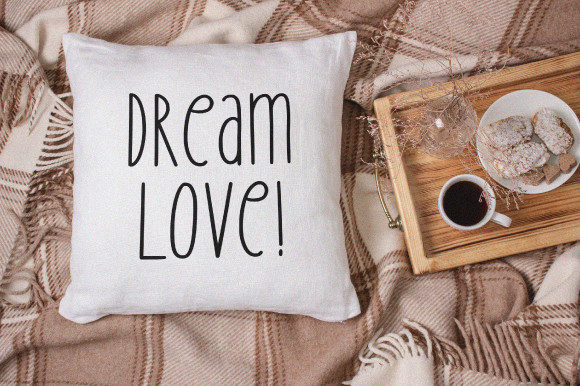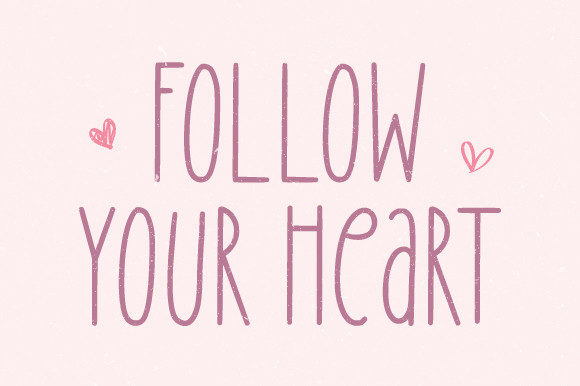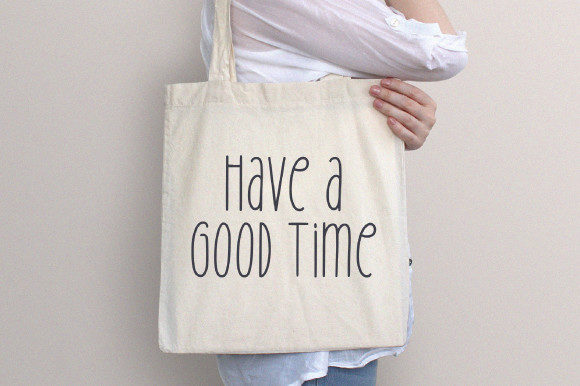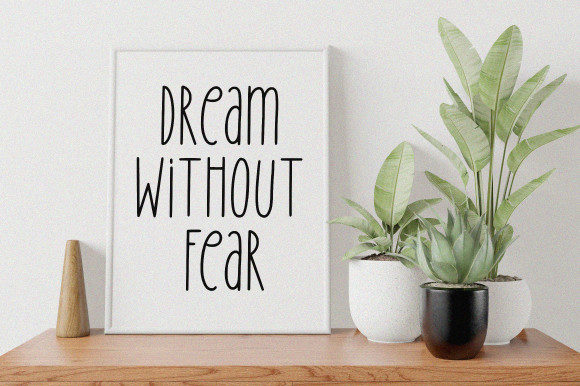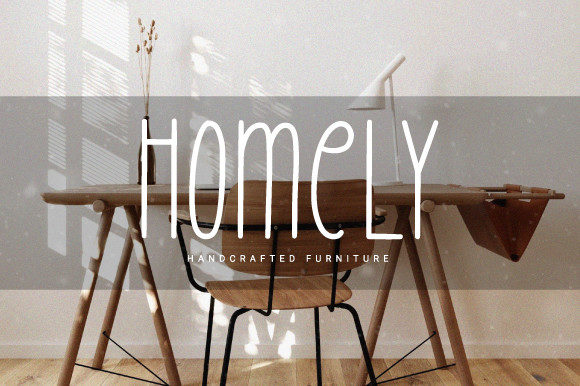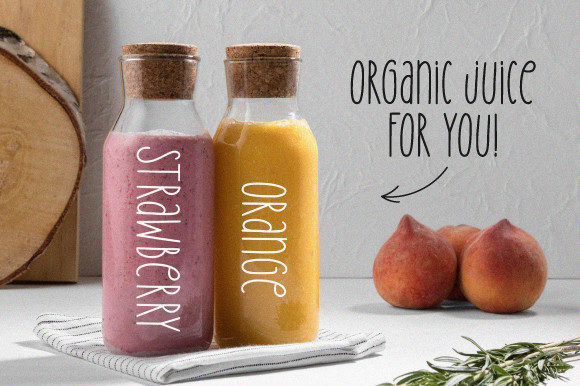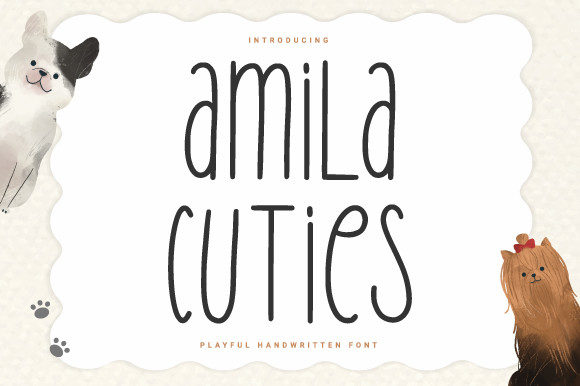
Introducing Amila Cuties Font: The Perfect Addition to Your Design Arsenal
Are you a designer, crafter, or DIY enthusiast looking for a font that can elevate your creative projects to the next level? Look no further than Amila Cuties Font, a tall, cute, and simple lettered display font that’s perfect for Instagram, calligraphy scripts, and a wide range of DIY projects. In this article, we’ll take a closer look at Amila Cuties Font, its features, and how you can use it to turn your creative ideas into true works of art.
What is Amila Cuties Font?
Amila Cuties Font is a beautifully designed display font that’s characterized by its tall, cute, and simple lettering style. Its clean and elegant design makes it perfect for a wide range of creative projects, from social media graphics and Instagram posts to calligraphy scripts and DIY crafts. Whether you’re a professional designer or a DIY enthusiast, Amila Cuties Font is a versatile and easy-to-use font that can help you add a personal touch to your projects.
Key Features of Amila Cuties Font
So, what makes Amila Cuties Font so special? Here are some of its key features:
- Tall and Cute Lettering Style: Amila Cuties Font features a unique and adorable lettering style that’s perfect for creating eye-catching graphics and designs.
- Simple and Elegant Design: The font’s simple and elegant design makes it easy to read and use in a wide range of creative projects.
- Perfect for Instagram and Social Media: Amila Cuties Font is optimized for social media use, making it perfect for creating stunning Instagram posts and stories.
- Suitable for Calligraphy Scripts and DIY Projects: The font’s elegant design and simple lettering style make it perfect for calligraphy scripts and a wide range of DIY projects.
How to Use Amila Cuties Font
Using Amila Cuties Font is easy and straightforward. Here are some ideas for using the font in your creative projects:
- Create Stunning Instagram Posts: Use Amila Cuties Font to create eye-catching Instagram posts and stories that showcase your creativity and style.
- Make Beautiful Calligraphy Scripts: The font’s elegant design and simple lettering style make it perfect for creating beautiful calligraphy scripts for special occasions.
- Elevate Your DIY Projects: Amila Cuties Font is perfect for a wide range of DIY projects, from crafting and scrapbooking to home decor and party planning.
Why Choose Amila Cuties Font?
So, why should you choose Amila Cuties Font for your creative projects? Here are some reasons:
- Unique and Adorable Design: Amila Cuties Font features a unique and adorable design that’s sure to stand out in any creative project.
- Versatile: Amila Cuties Font is perfect for a wide range of creative projects, from social media graphics to DIY crafts.
| Font Name | Amila Cuties Font |
| Author | Prioritype |
In conclusion, Amila Cuties Font is a beautiful and versatile display font that’s perfect for designers, crafters, and DIY enthusiasts. Its tall, cute, and simple lettering style makes it easy to use and perfect for a wide range of creative projects. Whether you’re looking to create stunning Instagram posts, beautiful calligraphy scripts, or elevate your DIY projects, Amila Cuties Font is the perfect addition to your design arsenal.